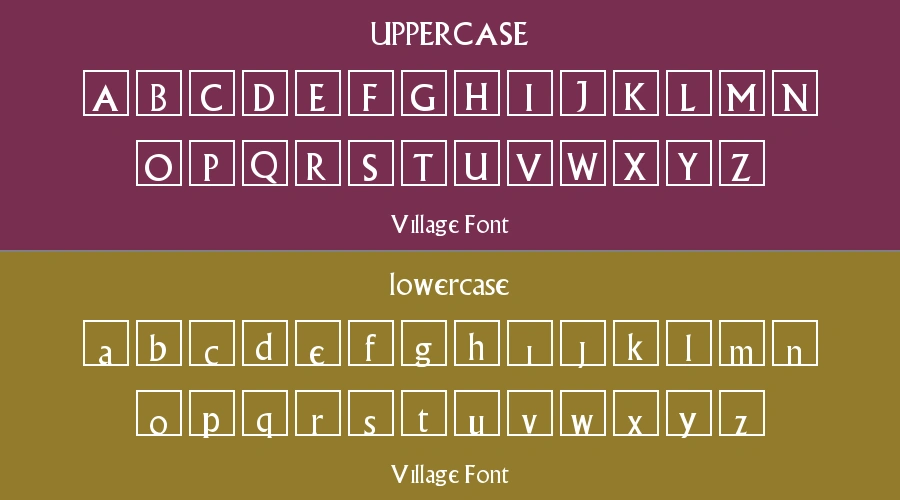
About Village Font
Village Font stands out for its distinctive combination of fluid motion and originality. Ideal for packaging hero, it provides the longevity and artistic value that professional projects demand. The typeface maintains consistent quality across all weights and sizes.
Key features include refined decorative elements and practical decorative sets, enhancing typographic expression. In creative titles applications, Village Font demonstrates exceptional texture integration. The counter shape and technical innovation contribute to its distinctive character and professional appeal.